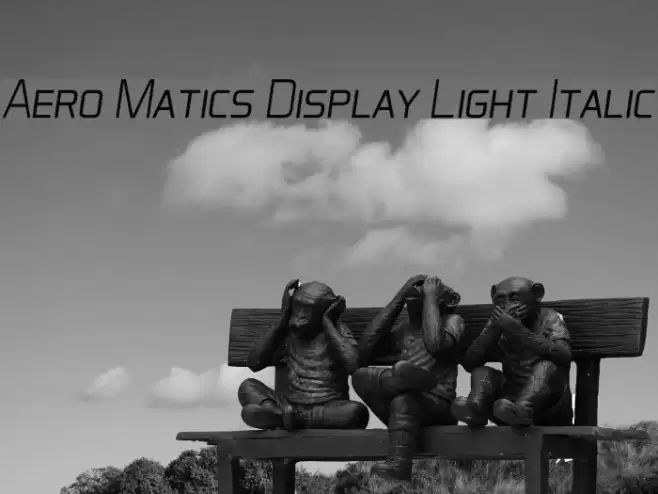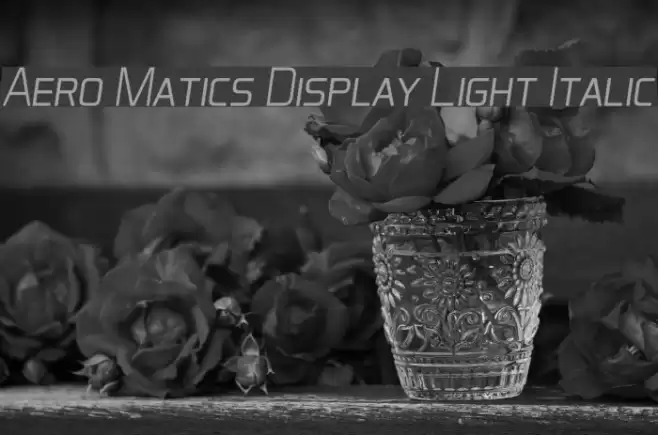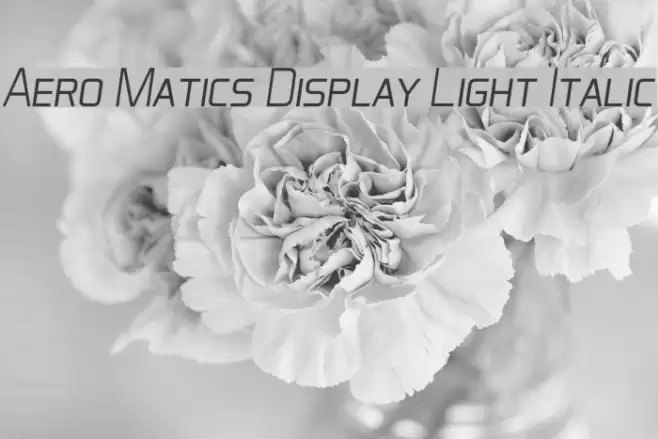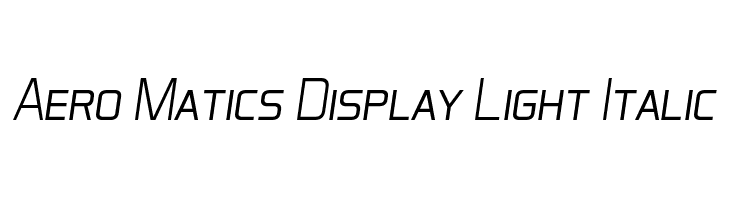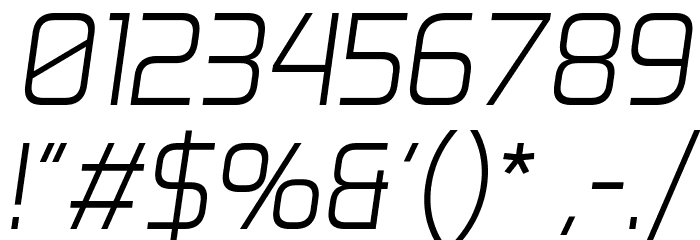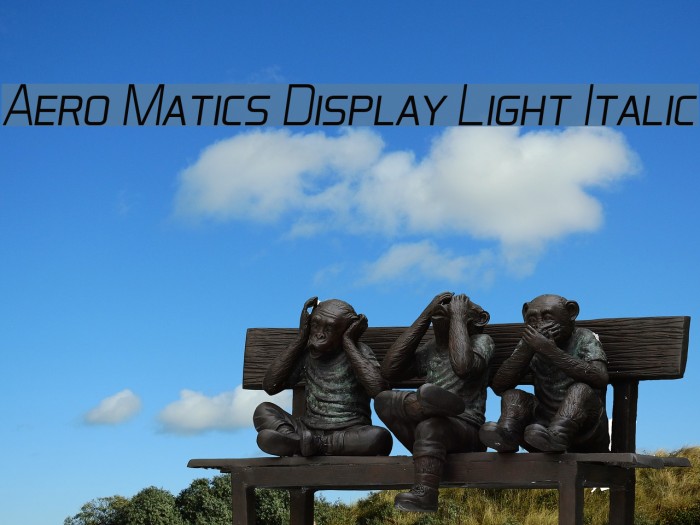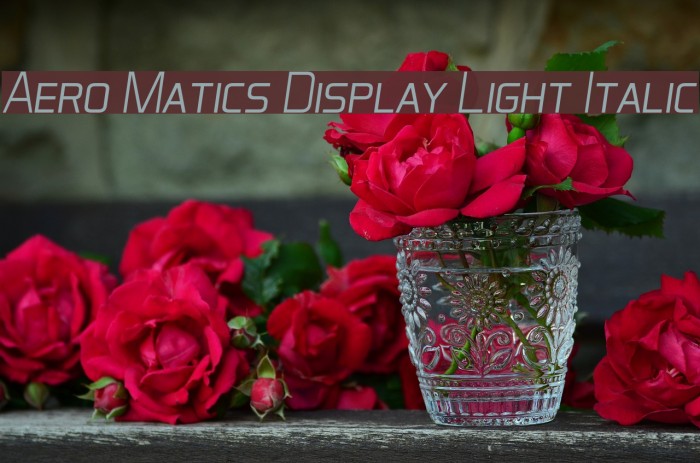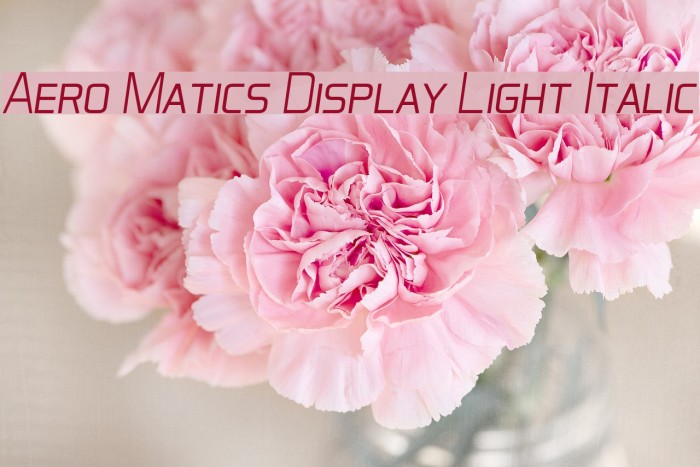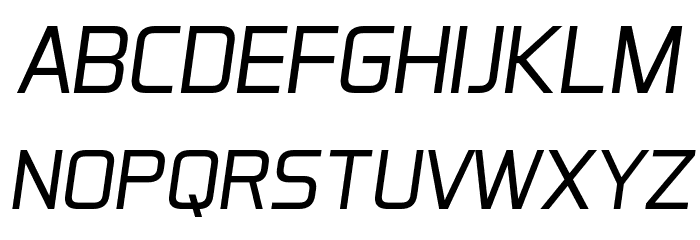
Aero Matics Display Light Italic
This font features a sleek and modern design with a distinct italic slant, giving it a dynamic and forward-moving appearance. The characters are crafted with precision, showcasing a geometric structure that is both clean and sophisticated. The strokes are consistent and smooth, contributing to a streamlined look. The font maintains a light weight, enhancing its airy and elegant feel. Its design is well-suited for contemporary projects that require a touch of sophistication and style. The spacing between characters is balanced, ensuring readability while maintaining its stylish aesthetic.
A sleek, modern italic font with a light weight and geometric design.
- Proposed Projects: Ideal for branding, advertising, modern web design, and editorial layouts.
- Weight: Light
- Use Case: Headlines, Logos, Branding